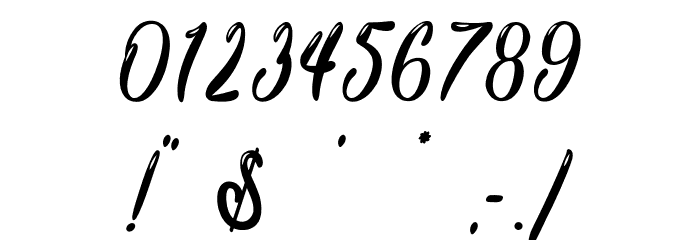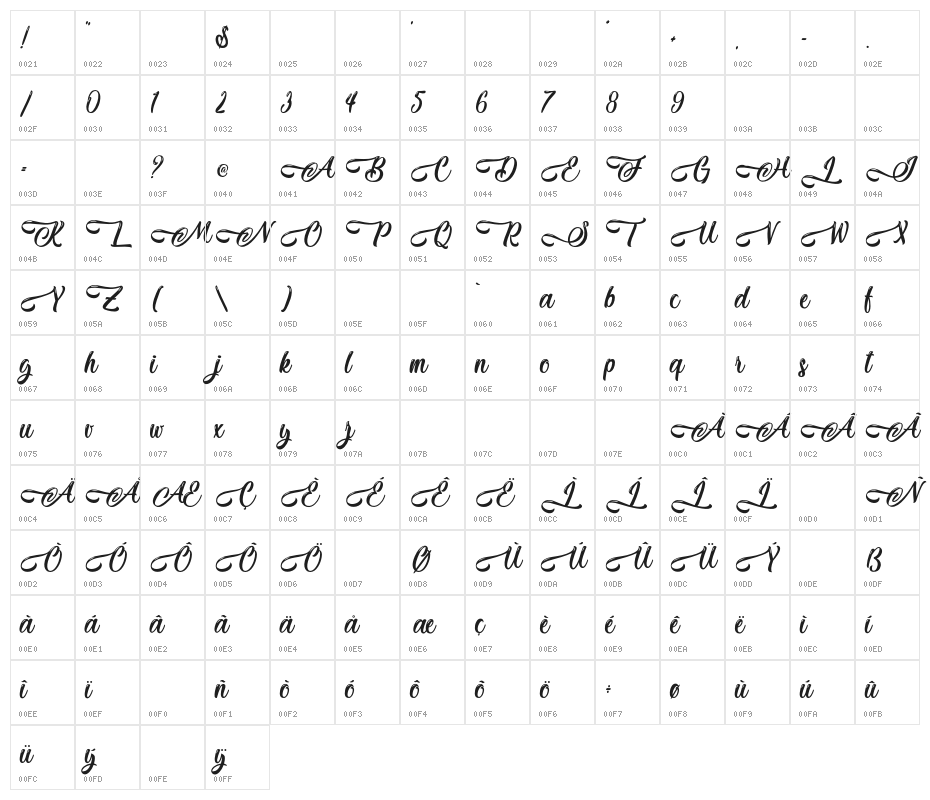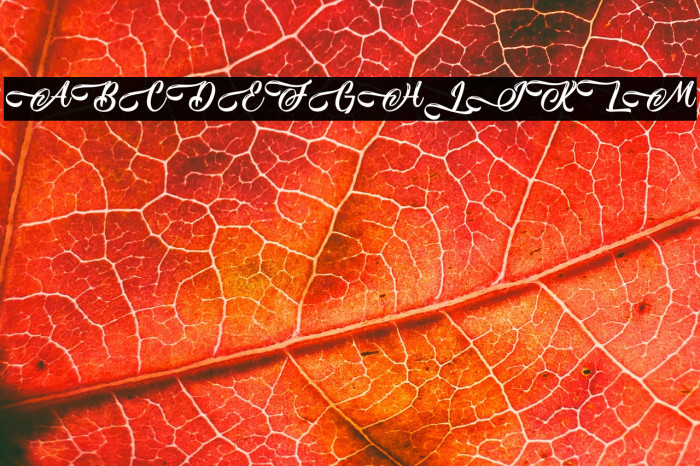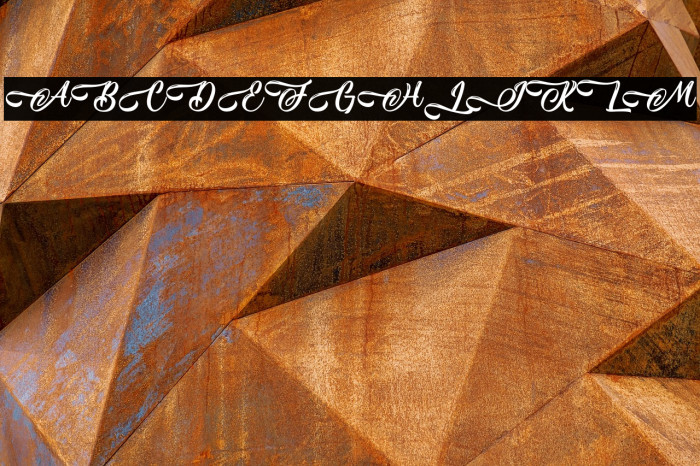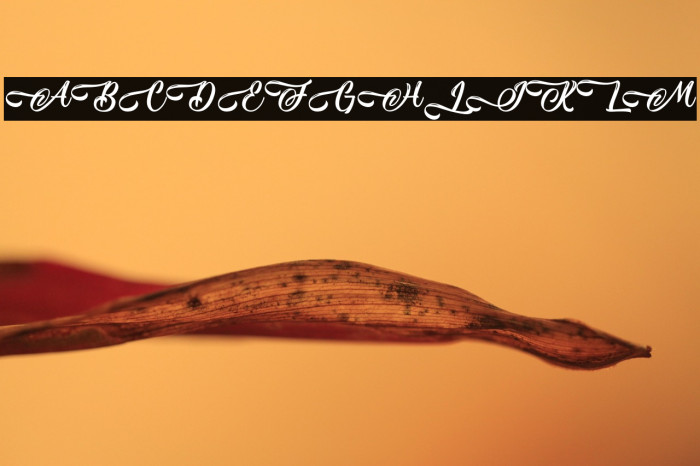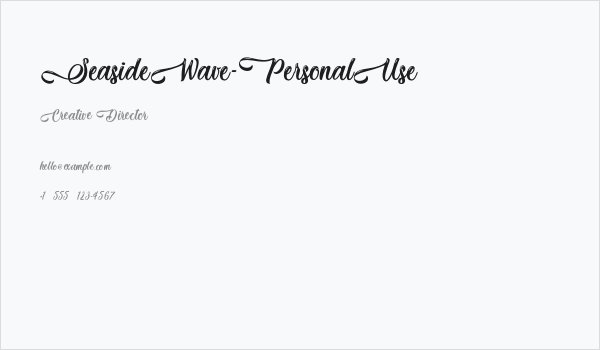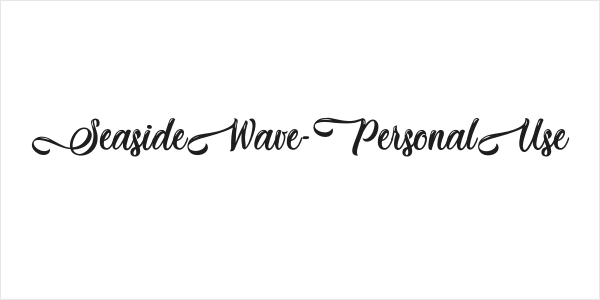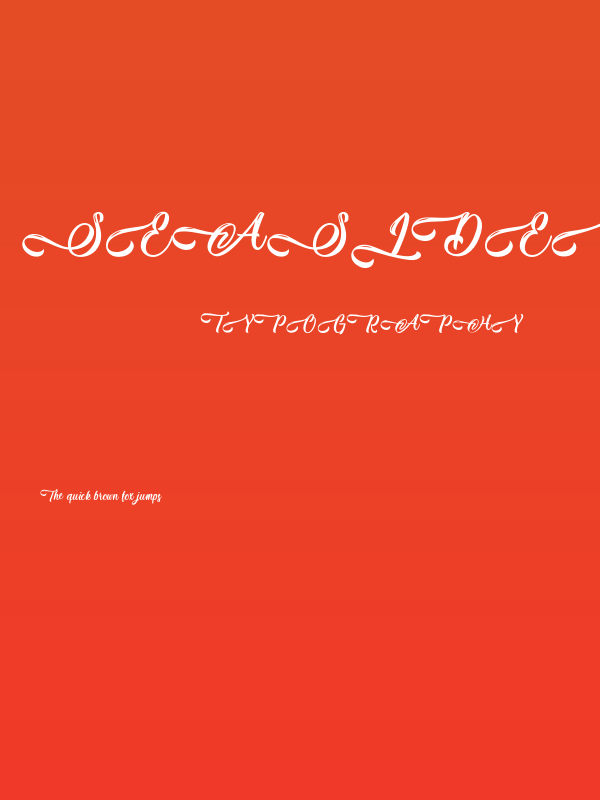
SeasideWave-PersonalUse Font
SeasideWave-PersonalUse Description
This font features a flowing, cursive style with elegant loops and swashes, giving it a sophisticated and artistic appearance. The uppercase letters are adorned with elaborate flourishes, while the lowercase letters maintain a smooth and connected script. The numerals and special characters are consistent with the overall decorative theme, adding a touch of whimsy and charm. The font's bold strokes and high contrast between thick and thin lines enhance its readability while maintaining its decorative appeal. Its unique style makes it suitable for creative and expressive projects.